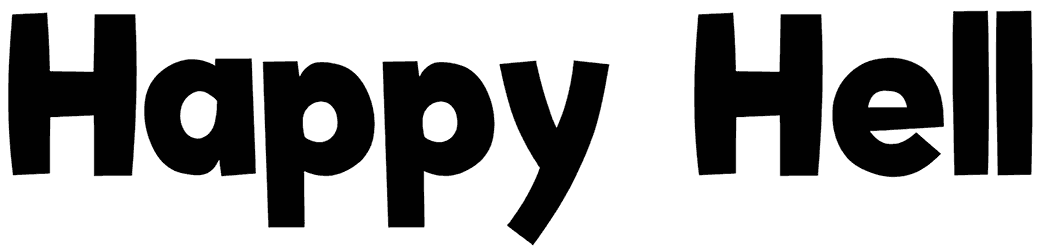
Happy Hell Font
Make your texts full of the joys of spring with a cutely fat font like Happy Hell. The strong set of letters takes notice of the crowd, wearing a round and cheerful appearance.
Dripping with a significant amount of friendly vibes, this sans serif font lands perfectly on your cartoonish designs. That includes all kid-related posters and games, stationery items, website covers, and more. By the way, for other categories, pay a visit to the rest of our library.